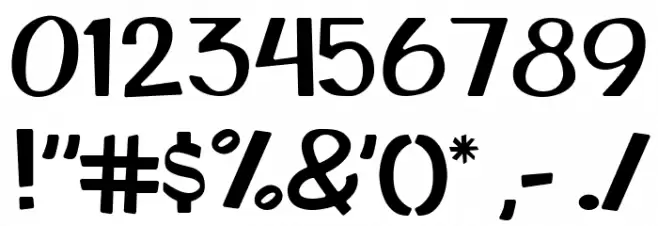
waterspring Font
waterspring Description
This playful and whimsical font features a hand-drawn style with a lively and informal appearance. The characters are slightly irregular, giving it a charming and approachable feel. The uppercase and lowercase letters maintain a consistent style, with rounded edges and a slight tilt that adds to the casual vibe. The numbers and special characters follow the same design principles, ensuring a cohesive look across all elements. This font is perfect for projects that require a fun and engaging touch, such as children's books, playful branding, or creative invitations.
A playful, hand-drawn font with a whimsical and informal style from Cartoon fonts.
- Proposed Projects: Ideal for children's books, playful branding, creative invitations, and casual posters.
- Overall Style: Playful